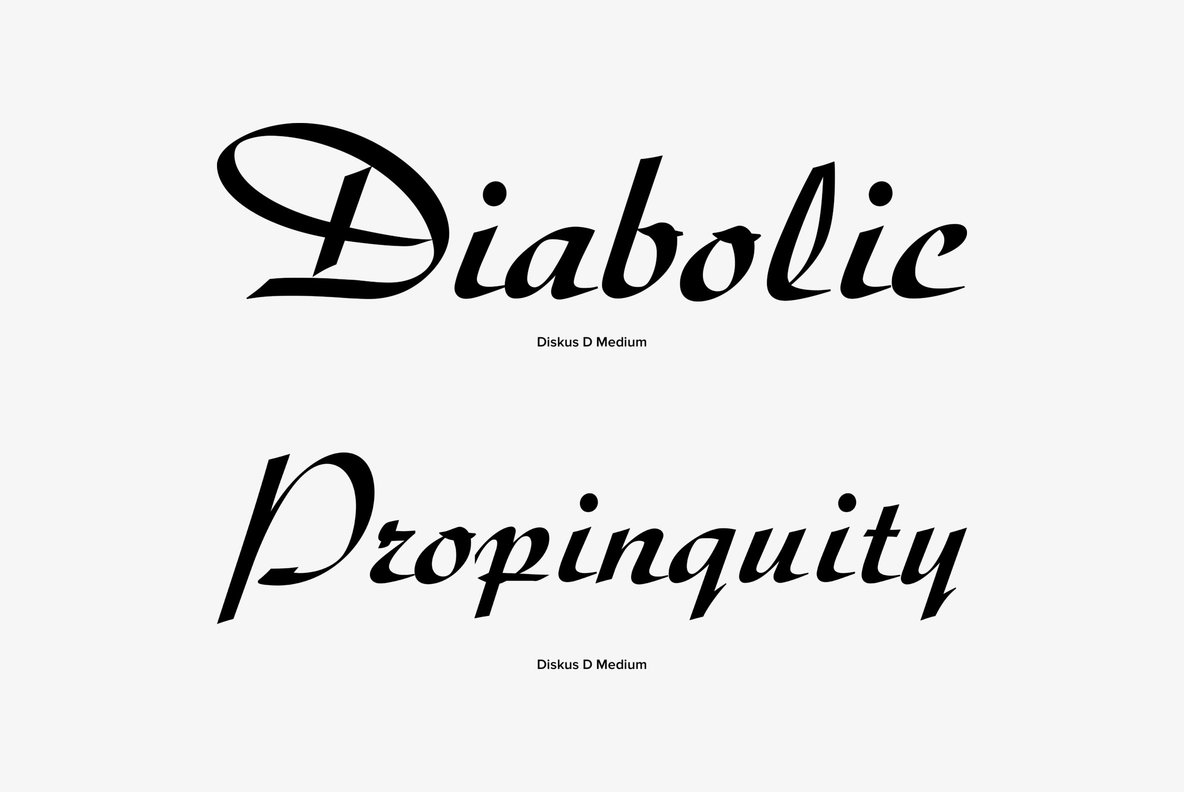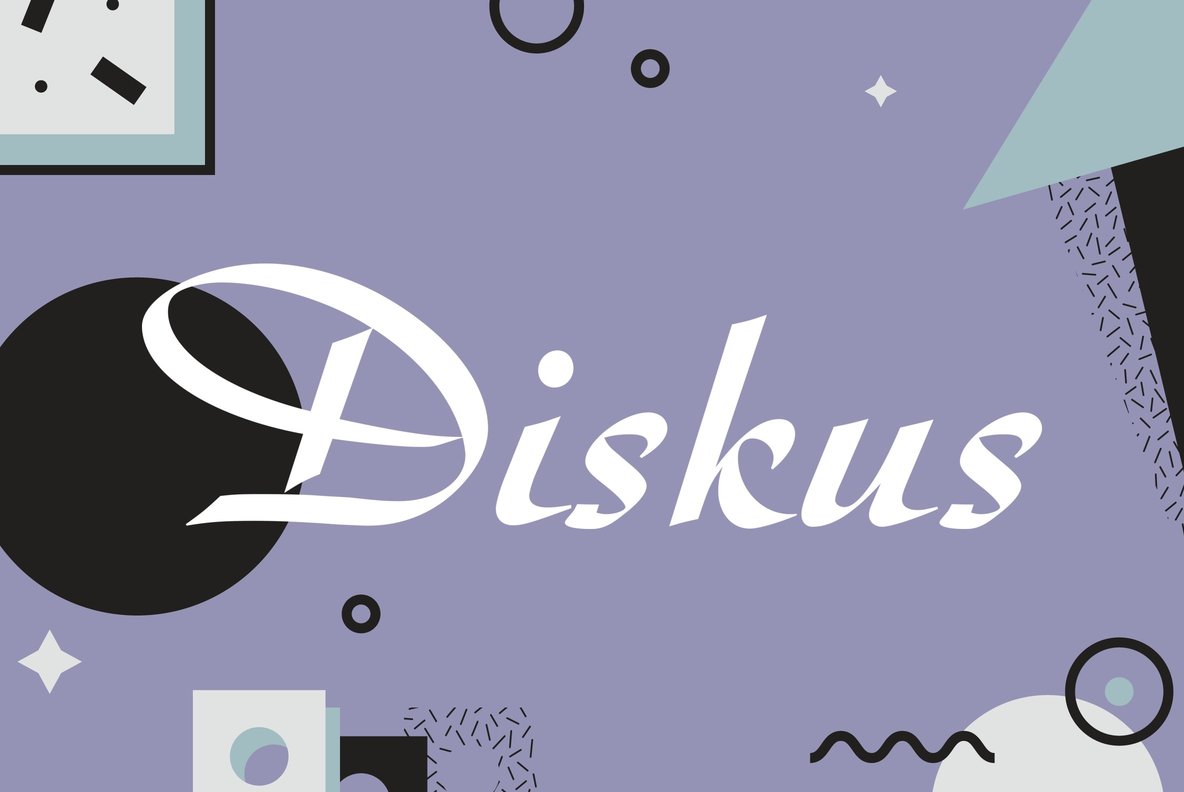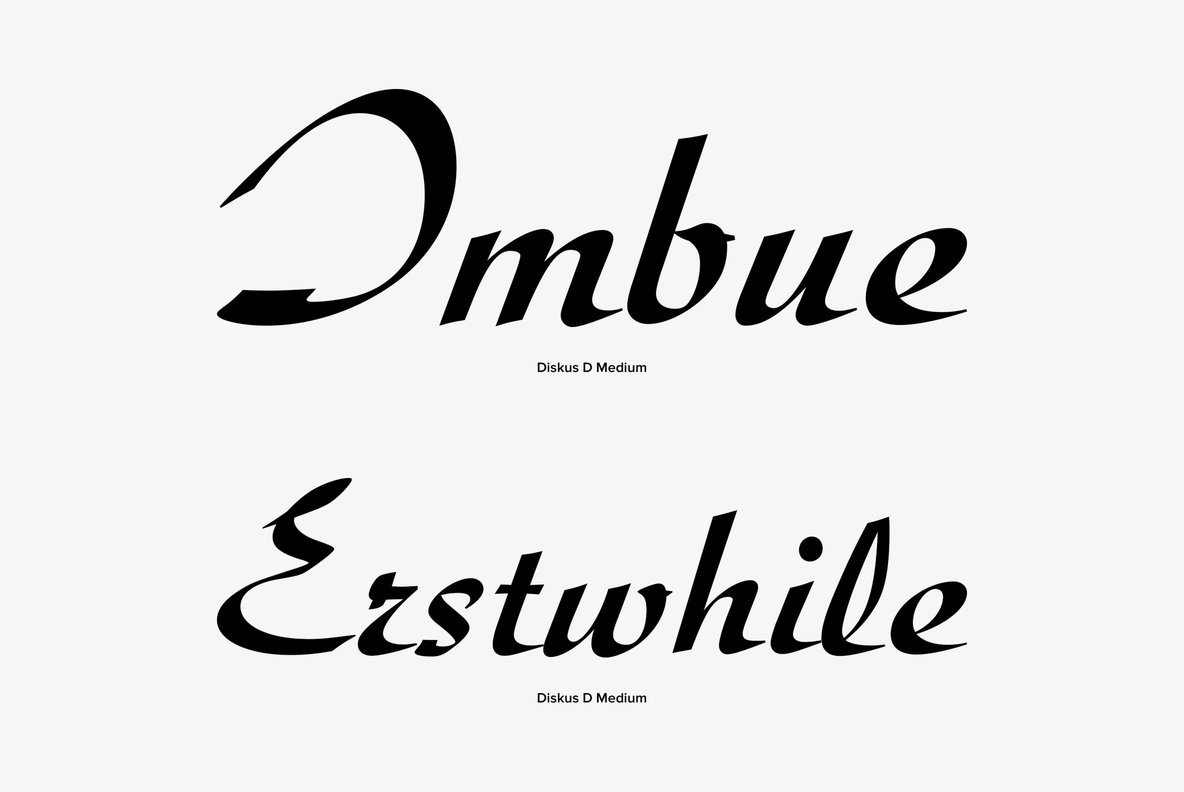
Diskus Font
Designed by Martin Wilke in 1938, Diskus is a script font release by URW. Contains language support for West, East, Turkish, Baltic, and Romanian.